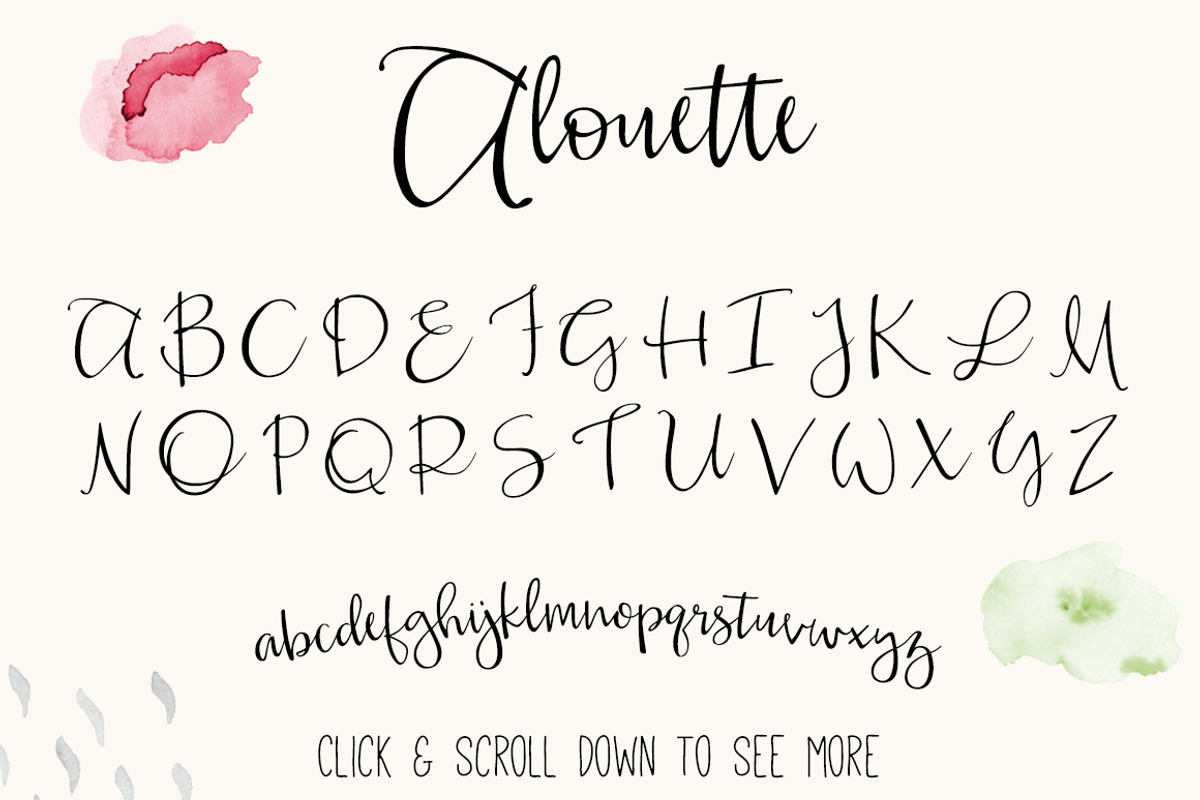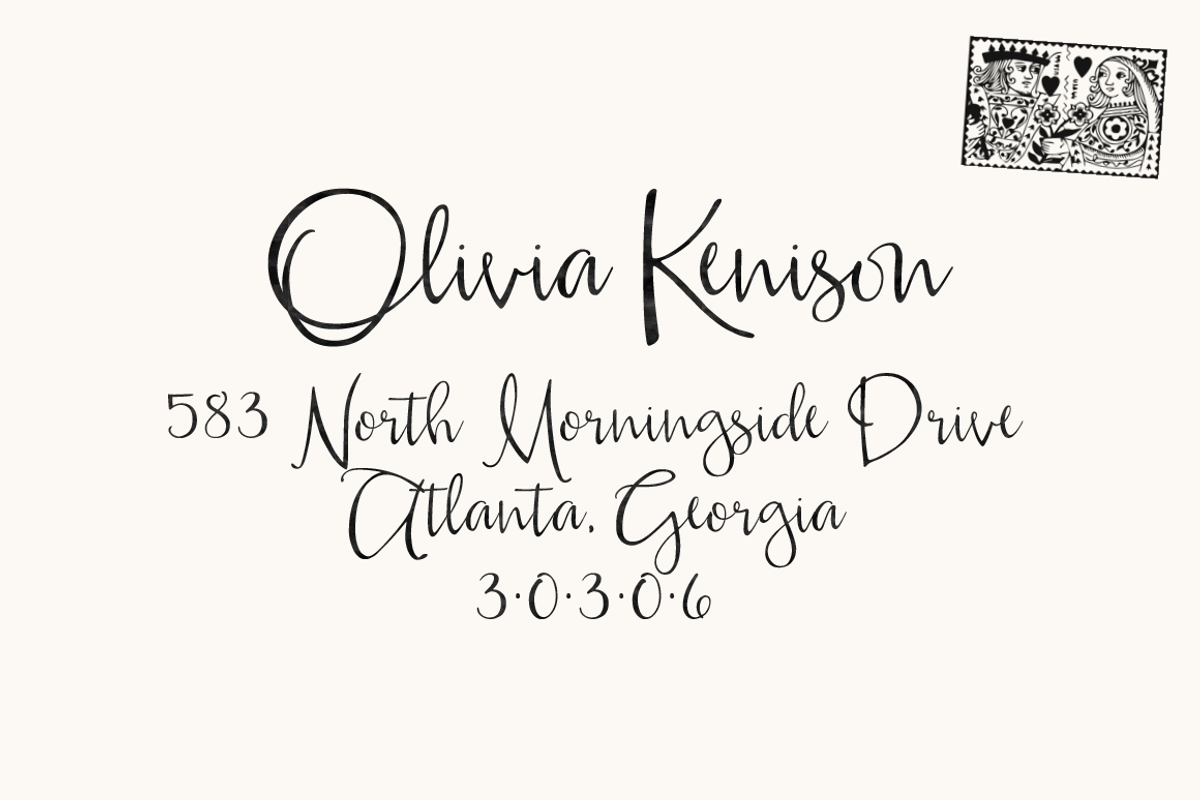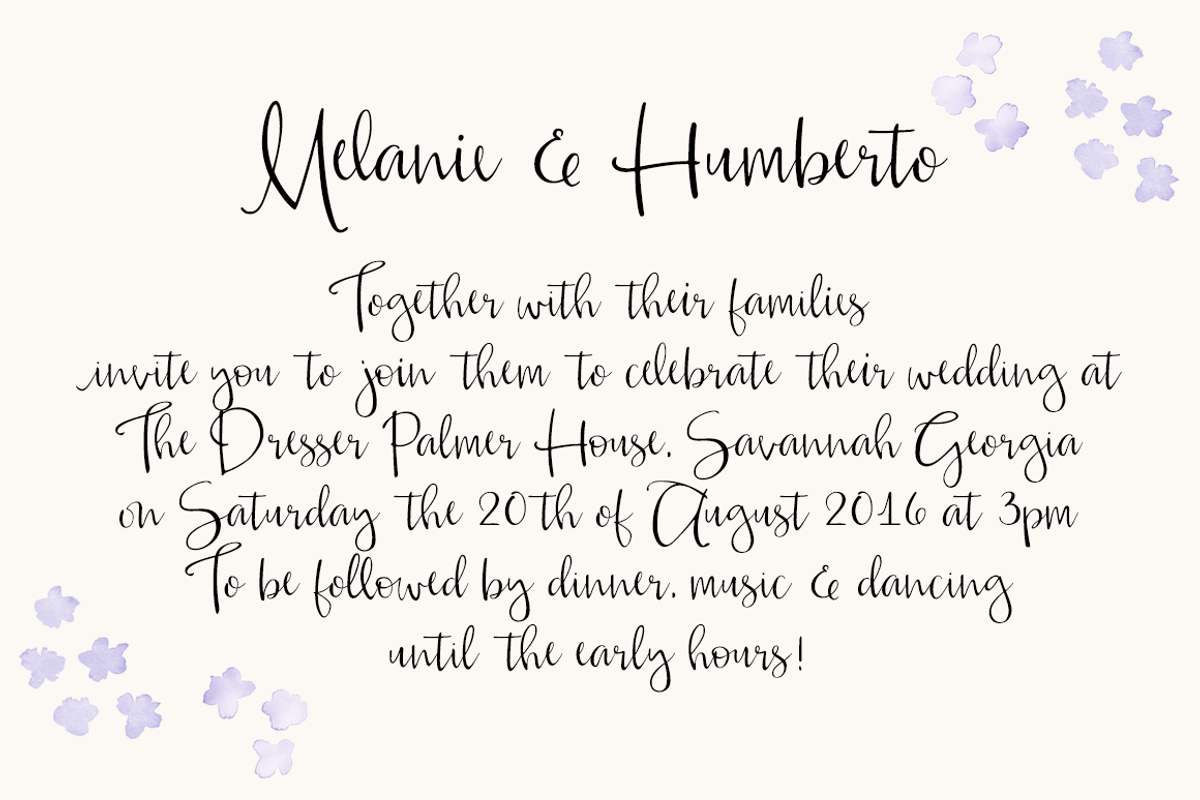
Alouette Modern Calligraphy Font
Alouette Modern Calligraphy Font by Seven Seas Design Co. is a font selected for branding, posters, packaging, typography.
- Alouette is a hand-lettered modern calligraphy script font, that includes discretionary ligatures, stylistic alternates, initial and termina
- Alouette includes several ligatures and alternates to make your text look more handwritten.
Why Alouette Modern Calligraphy Font is worth a look
Alouette Modern Calligraphy Font by Seven Seas Design Co. fits naturally into Branding, posters, packaging, typography.